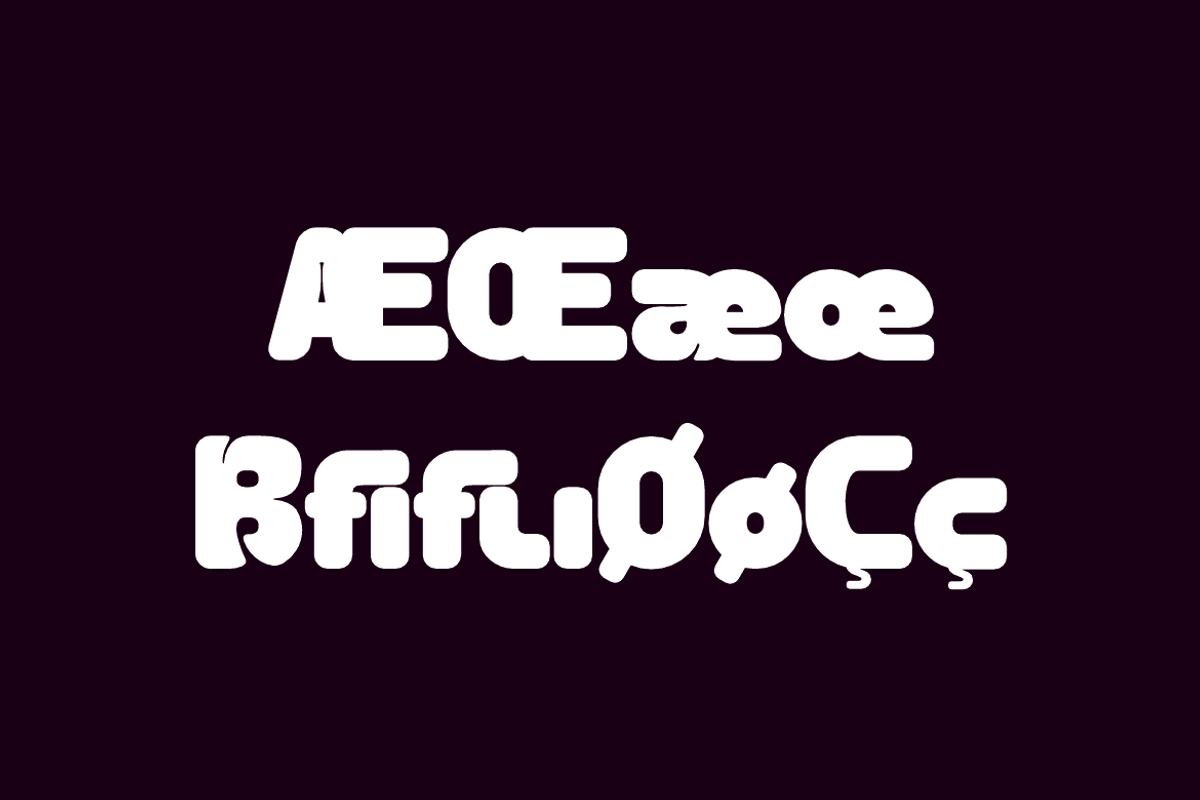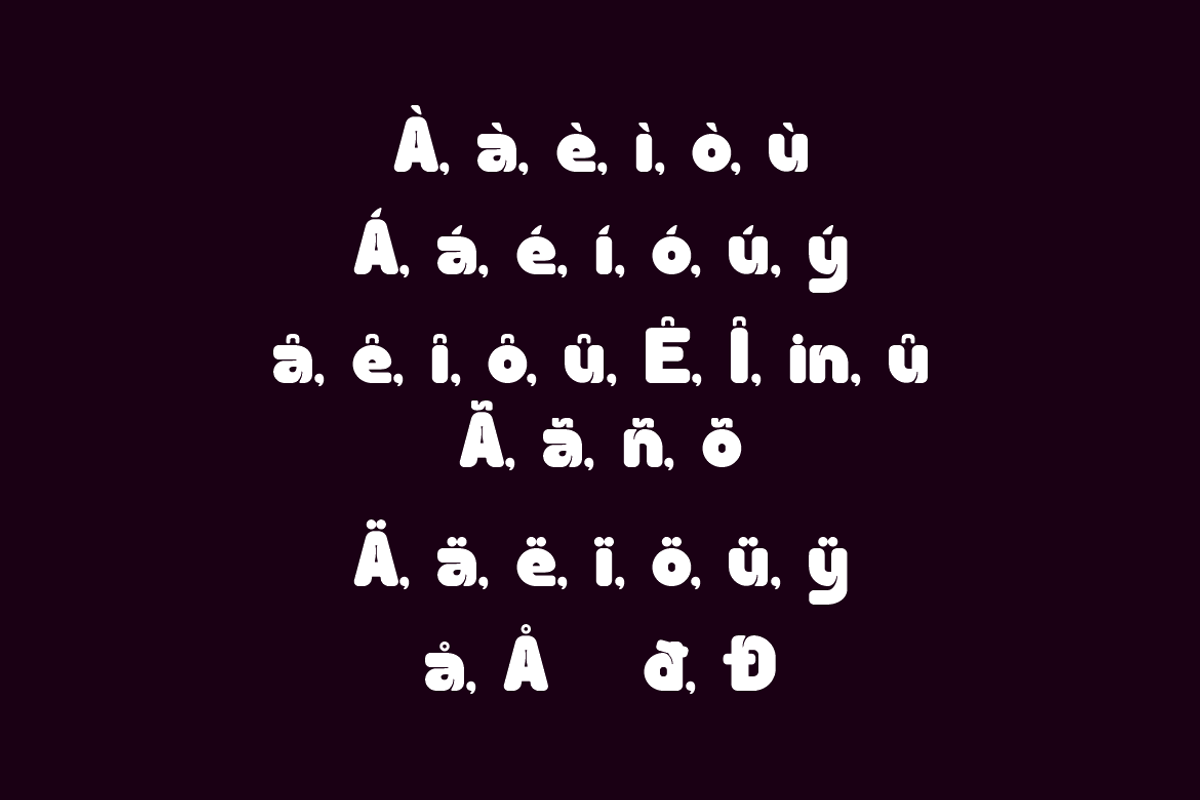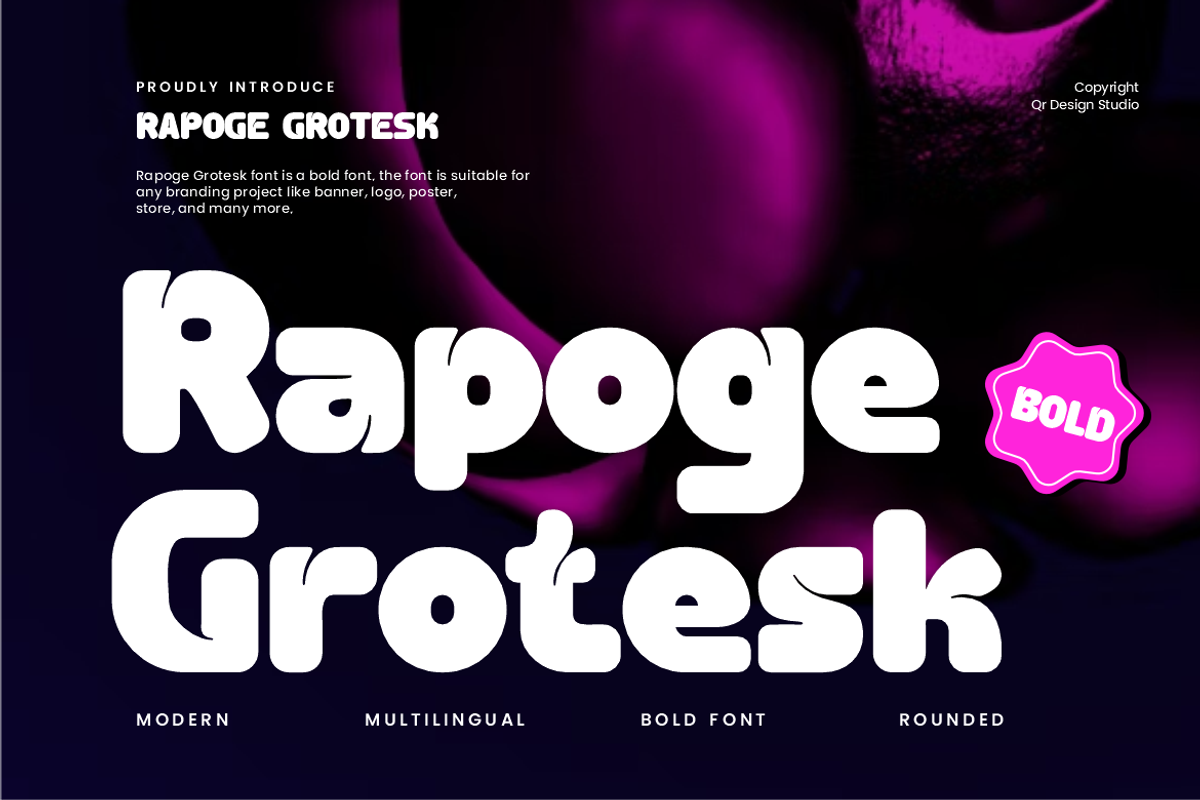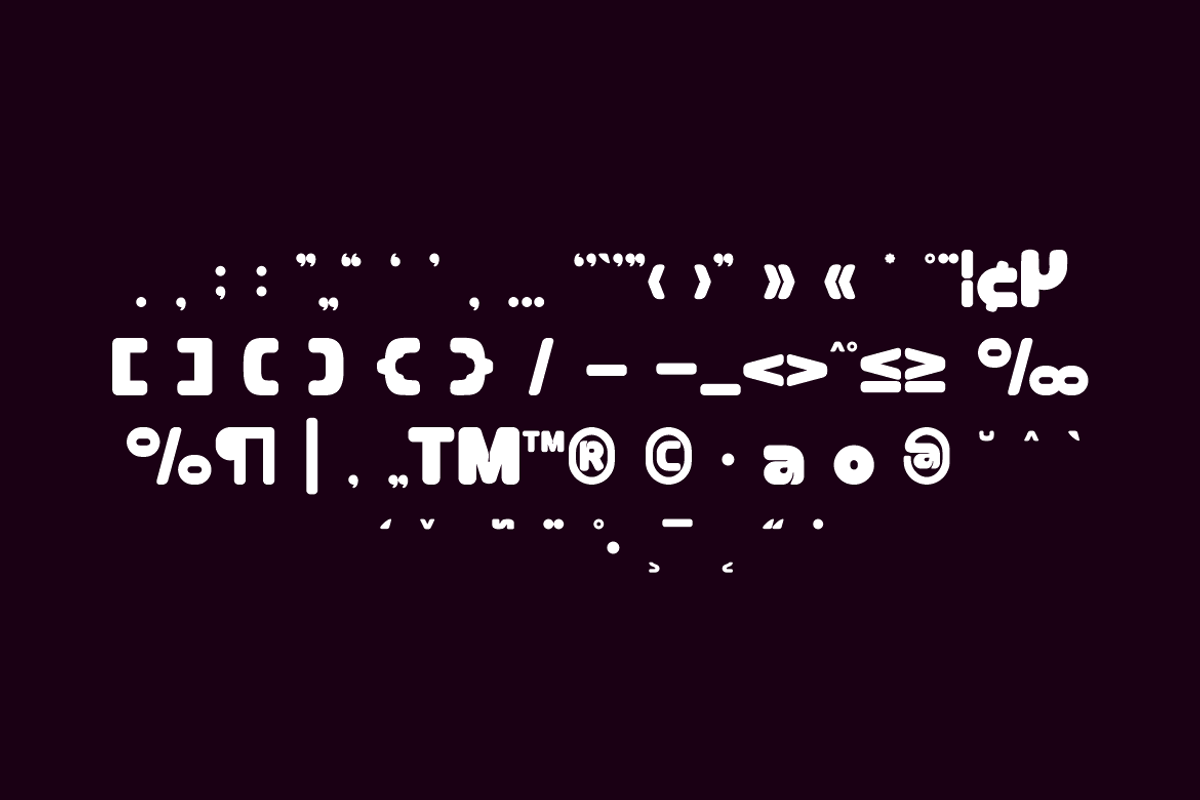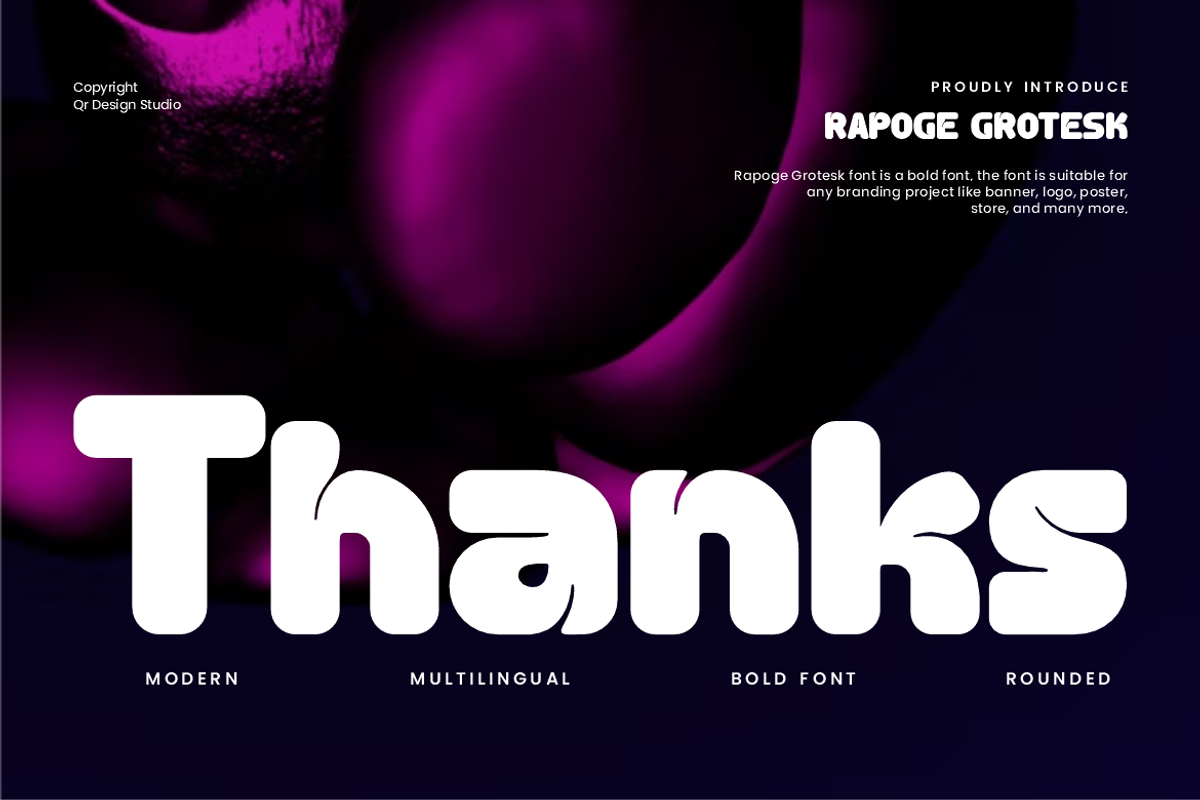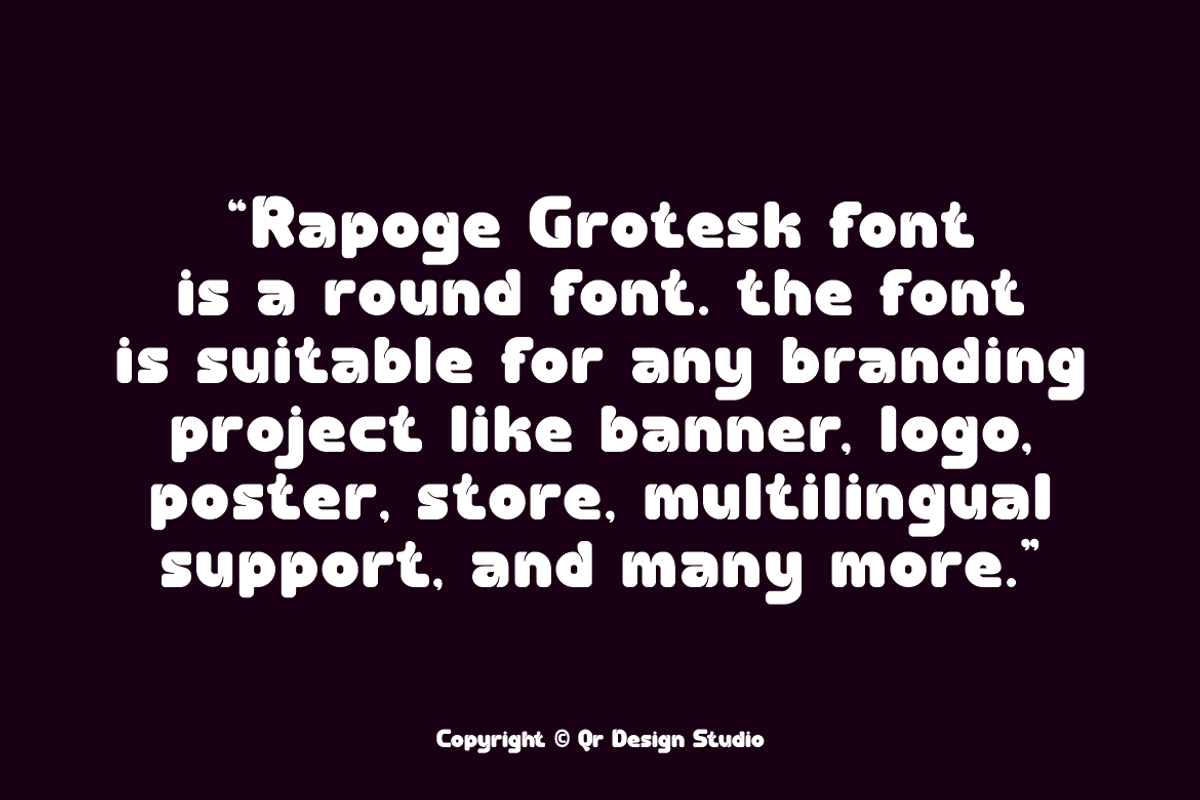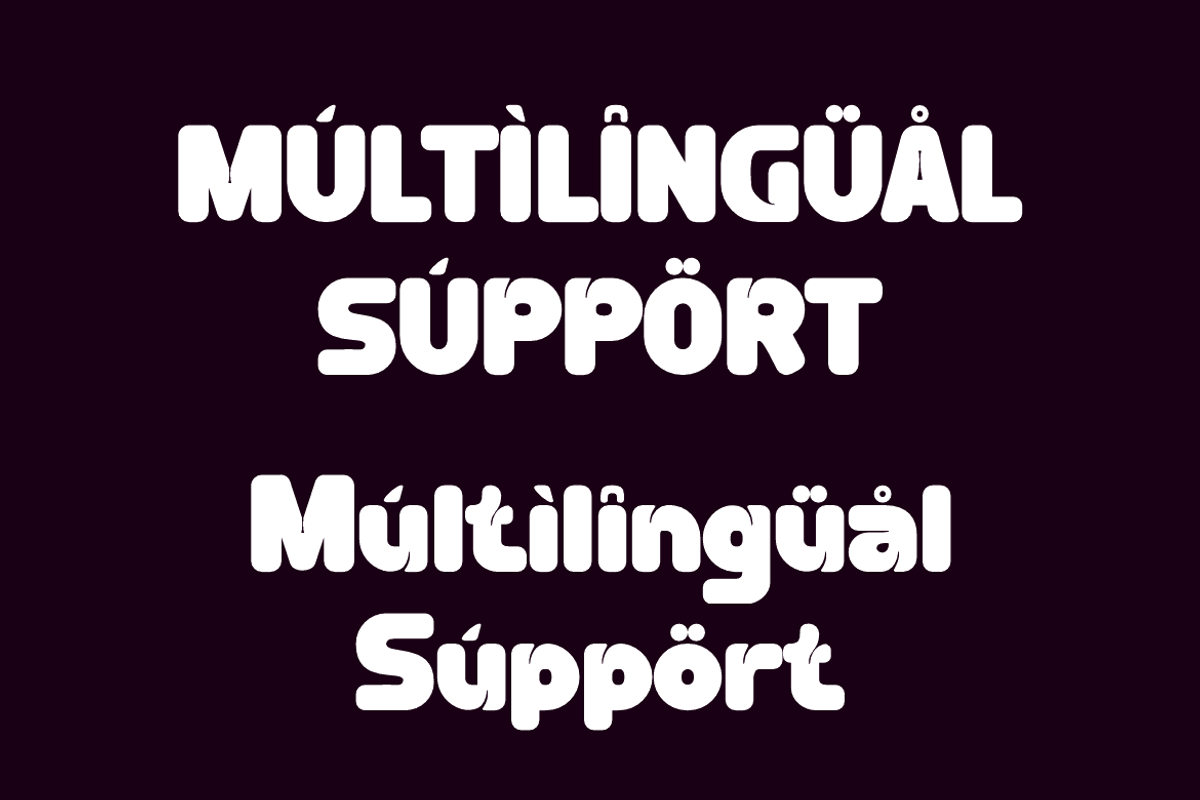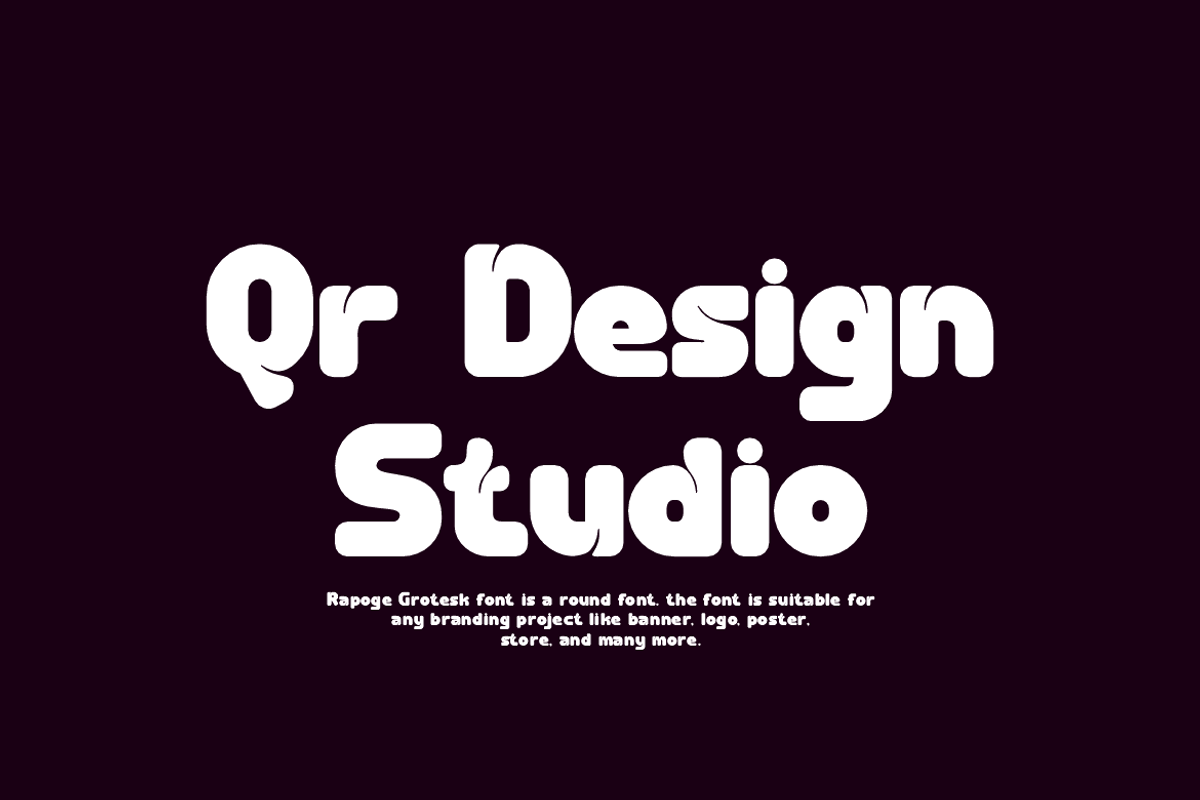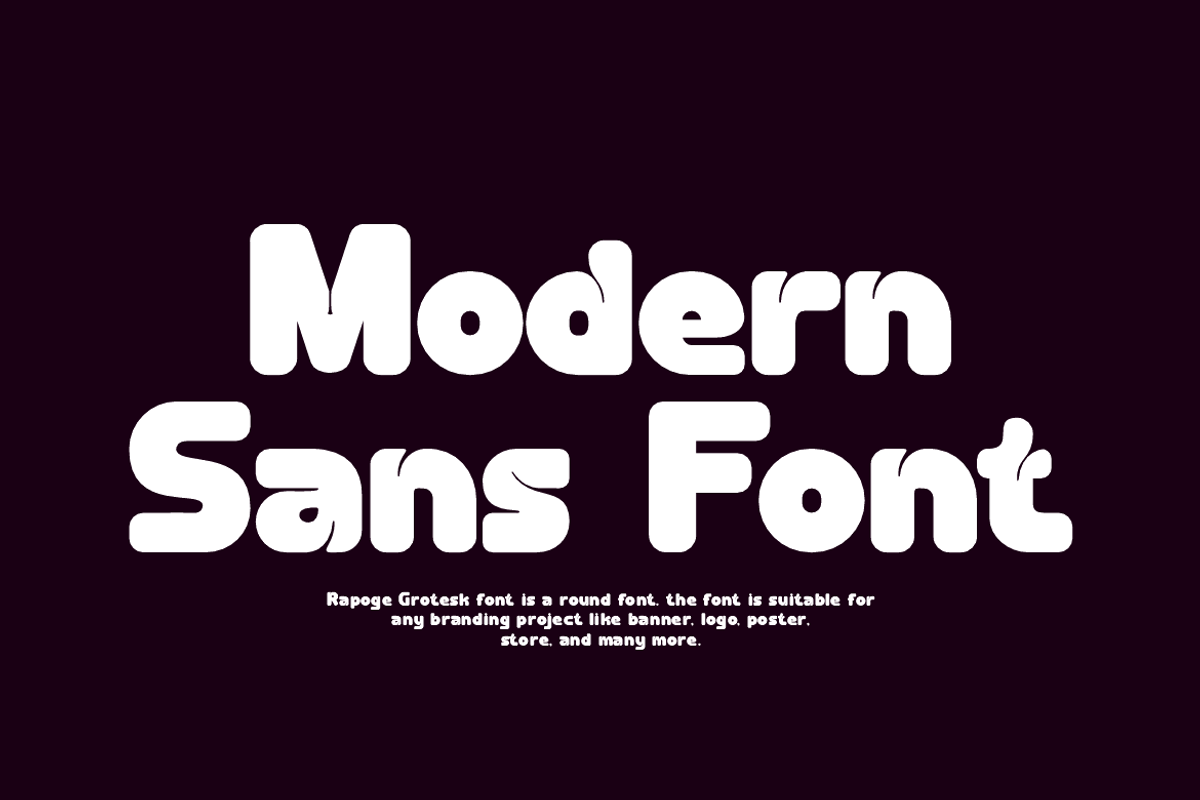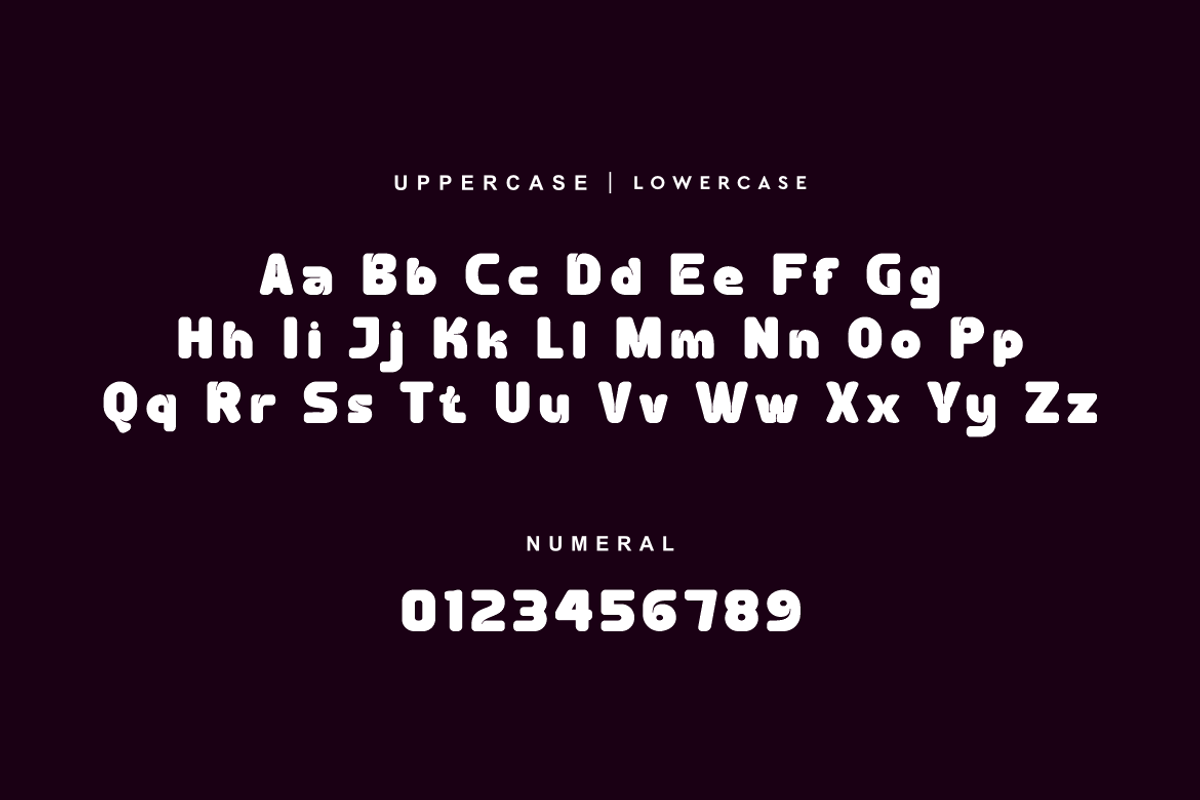
Rapoge Grotesk - Round Sans Font
Rapoge Grotesk Font is a bold and authentic display font. The font is suitable for any branding project like poster, logo, sport, and many more. Outstanding in a wide range of contexts.